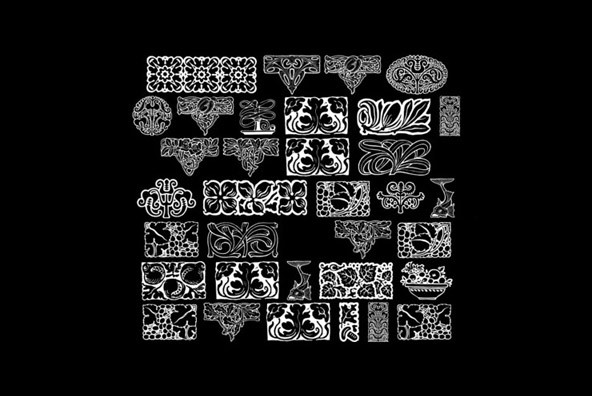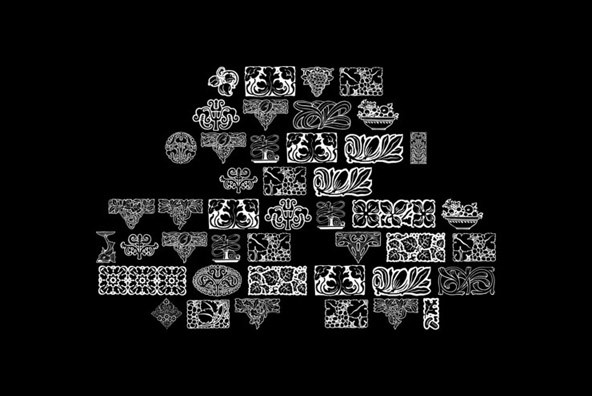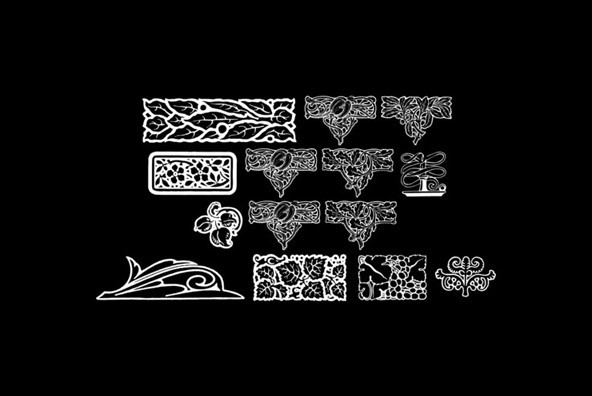
A nice mix of decorative ornaments. Designs are reminiscent of old typographical catalogues. Simple enough to add interesting detail to just about any design. From invitations and greeting cards to book jackets, labels or fabric.